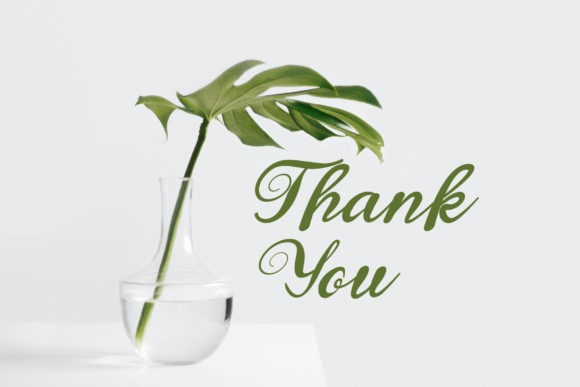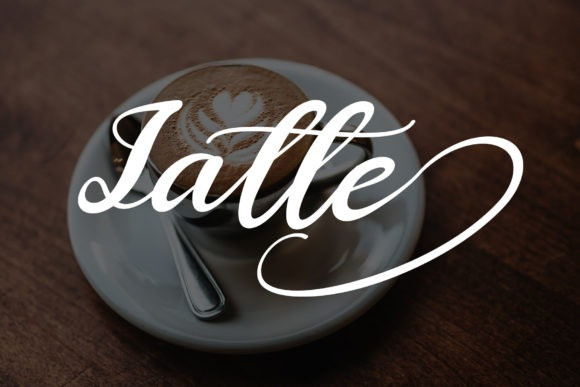
Latte Font
Latte Font is a chic, refined script font that emanates sophistication and elegance. Its stylish alternates and ligatures make this font the perfect match for any project. Latte is PUA encoded which means you can access all glyphs and swashes with ease!